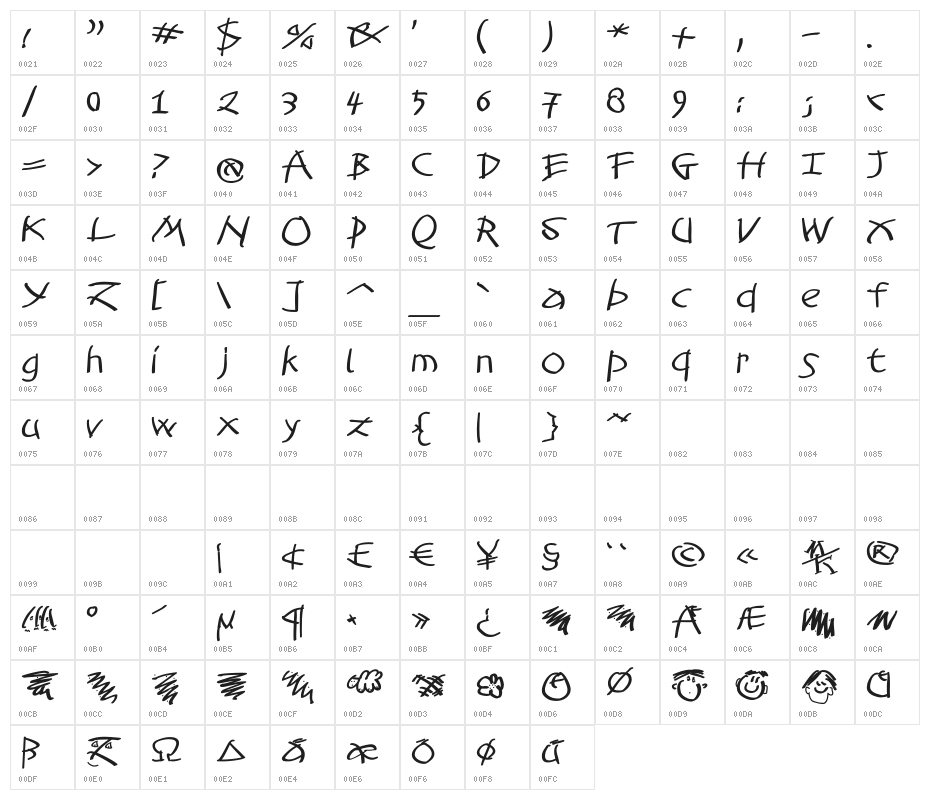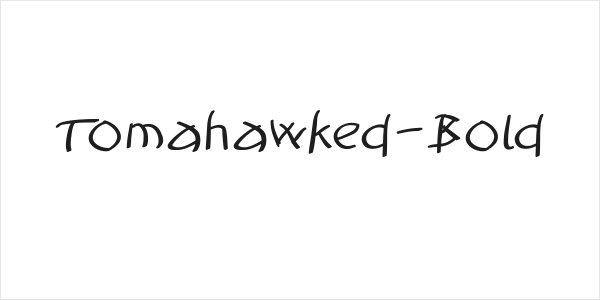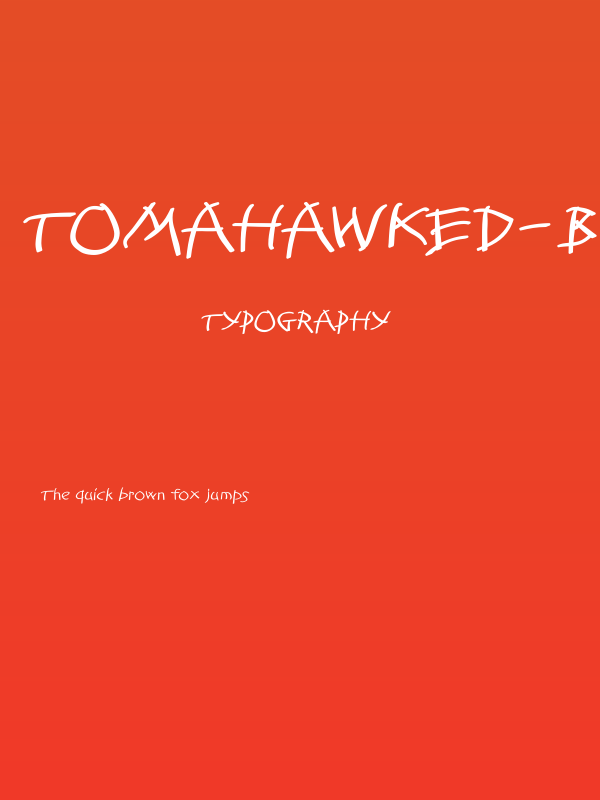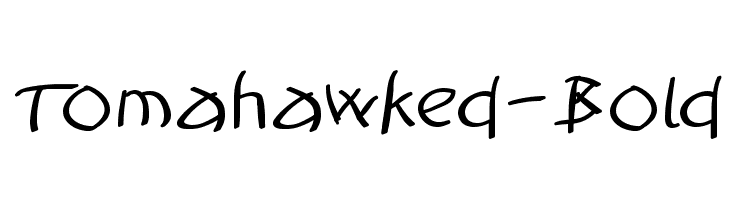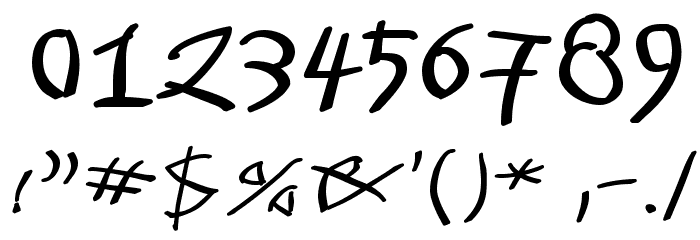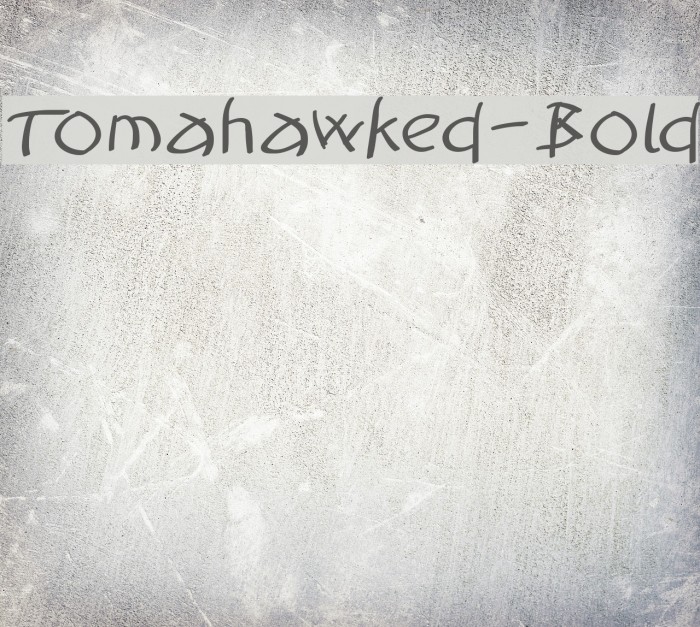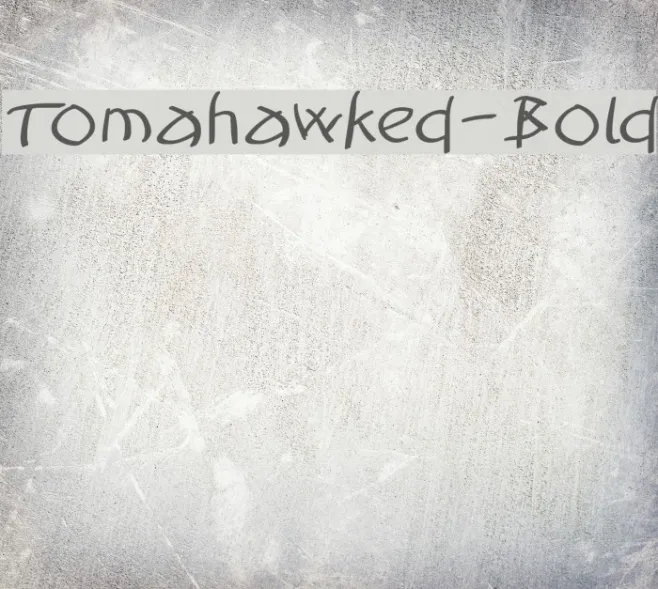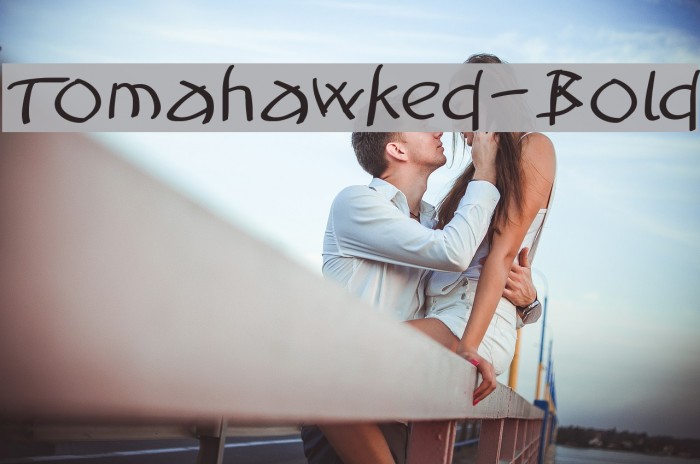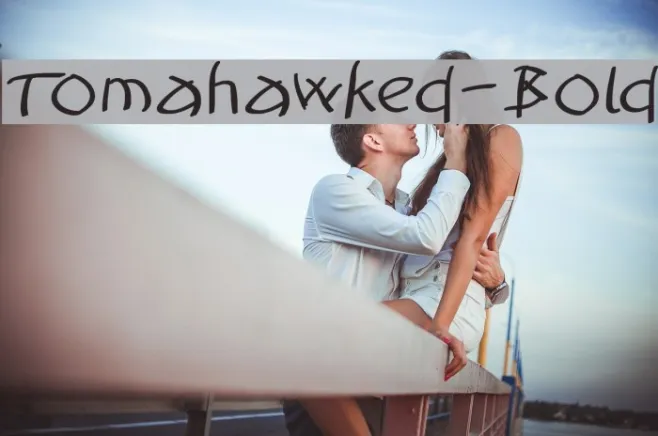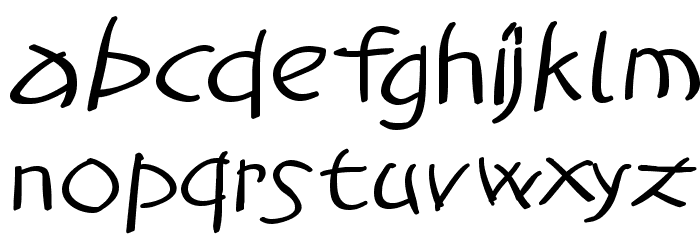
Tomahawked-Bold Font
Tomahawked-Bold Description
This font features a bold, hand-drawn style with a playful and energetic appearance. The letters have a slightly irregular and dynamic form, giving them a lively and informal feel. The strokes are thick and uneven, adding to the font's unique character. It maintains a consistent weight throughout, with a slightly condensed width that enhances its boldness. The font's overall style is decorative, making it suitable for projects that require a distinctive and eye-catching look. The character spacing is normal, allowing for good readability while maintaining its artistic flair.
| Proposed Projects | Ideal for posters, logos, children's books, and creative branding projects. |